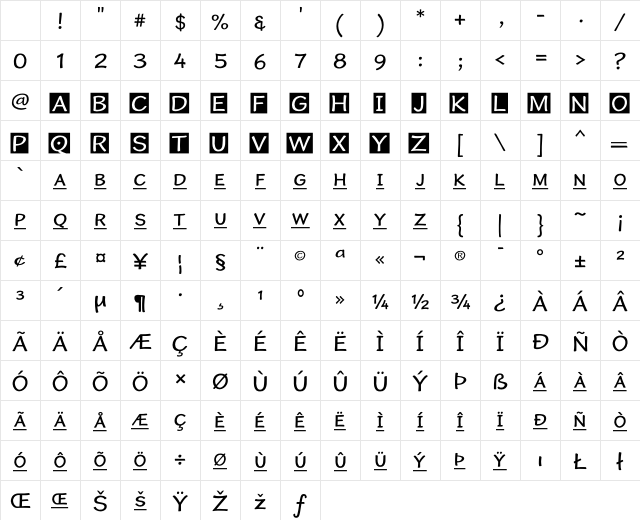
Complete Cordin Freebie 2a Regular glyph index. Displaying only characters natively supported by Cordin Freebie 2a Regular font.
Cordin Freebie 2a is a composed and adaptable typeface that performs quietly and consistently across a wide range of design contexts.
Pro Tip: Use Cordin Freebie 2a in both headline and body roles to test its range before committing to a single application.